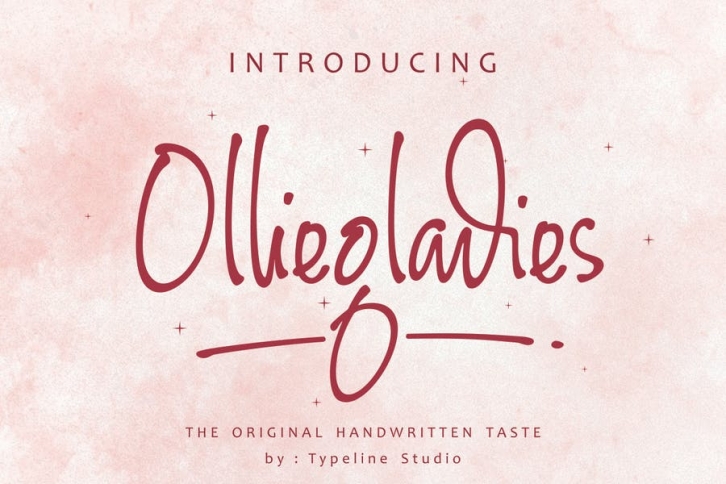
Olliegladies, Chic Handwritten Typeface FONT Download
Olliegladies, Chic handwritten Typeface, Take home Olliegldies now and add this stunning, chic signature typeface font to your typeface toolbox. for those of you who crave a beautiful handwritten style, initials, logo, and various of your design needs.
Chic, Modern, Classy, Handwritten Typeface font. Smooth Lines, Stunning alternates and Ligature Fabulous choice for a wide range of projects including Quotes, Book Covers, Logos, Branding, etc. Multi-lingual support.